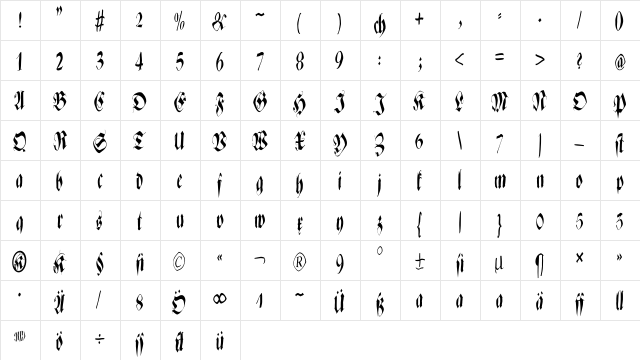
ZenFraxFreestyleCondensed Regular
Design Context for ZenFraxFreestyleCondensed Typeface
ZenFraxFreestyleCondensed is a composed and adaptable typeface that performs quietly and consistently across a wide range of design contexts. The condensed width makes it efficient for tight spaces without sacrificing legibility.